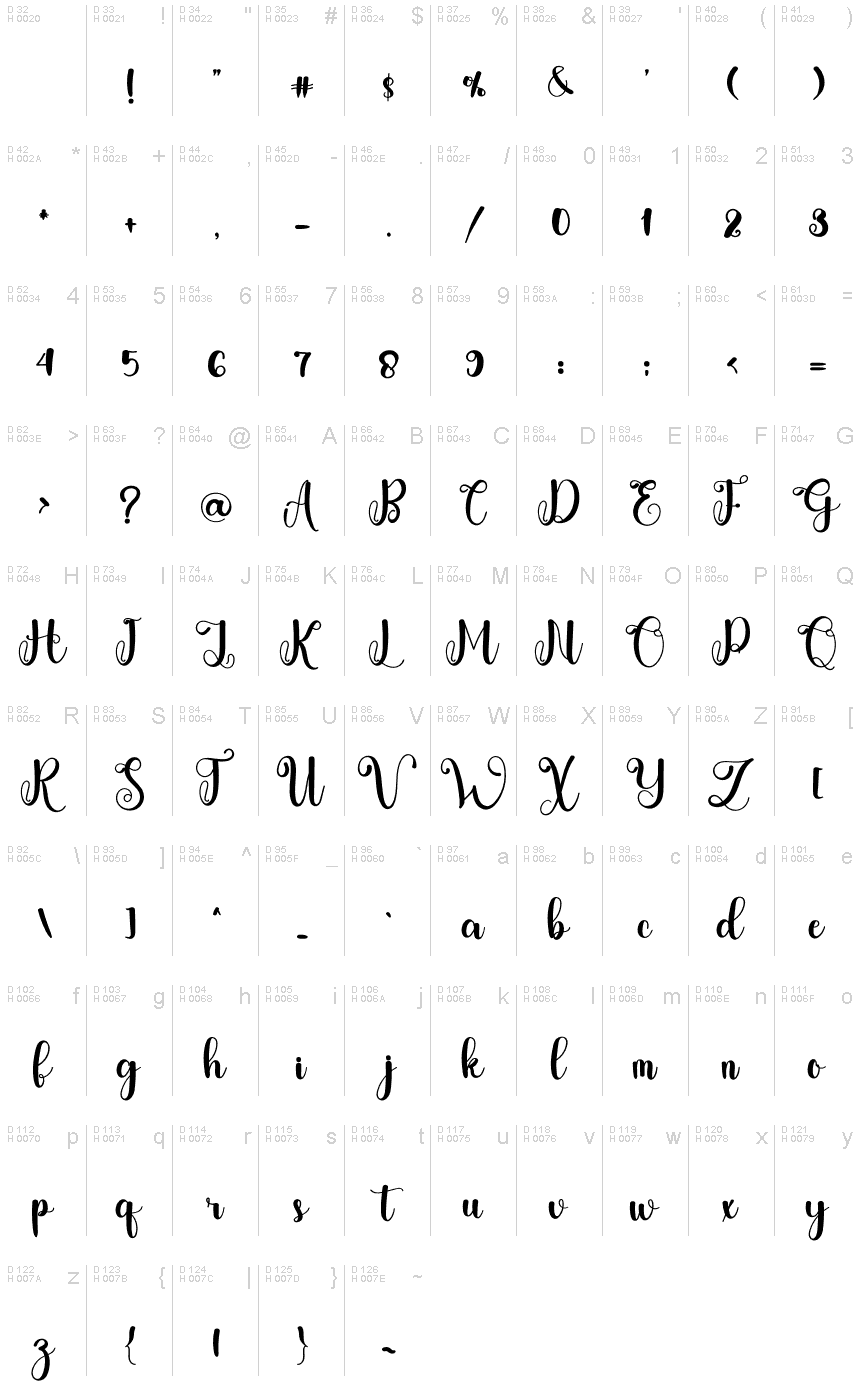
Sweetness
Sweetness is a captivating calligraphy font designed by FreshtypeINK. With its elegant and flowing strokes, this font exudes sophistication and charm. Perfect for wedding invitations, greeting cards, or any project that requires a touch of romance. Sweetness adds a touch of class to branding materials, logos, and advertisements. Its versatility also makes it suitable for websites seeking a refined yet approachable aesthetic. Whether used in print or digital media, Sweetness elevates any design with its graceful curves and timeless appeal. Embrace the sweetness and let your creativity flourish with this exquisite calligraphy font.